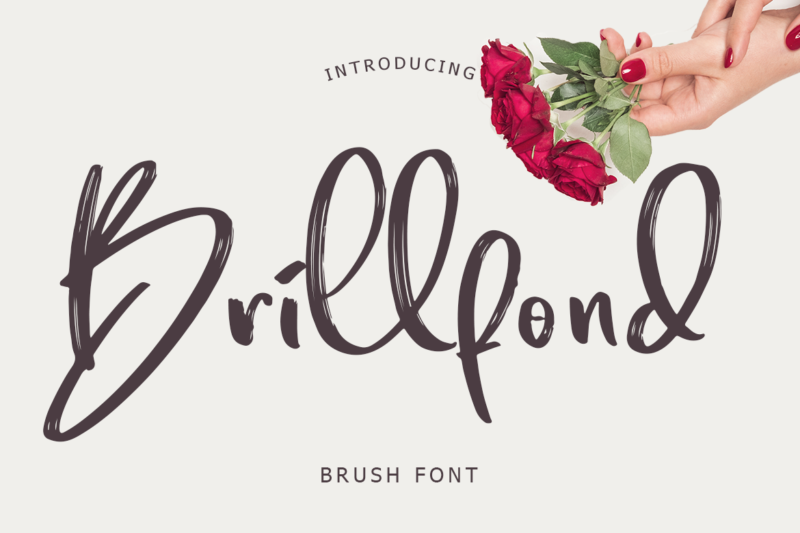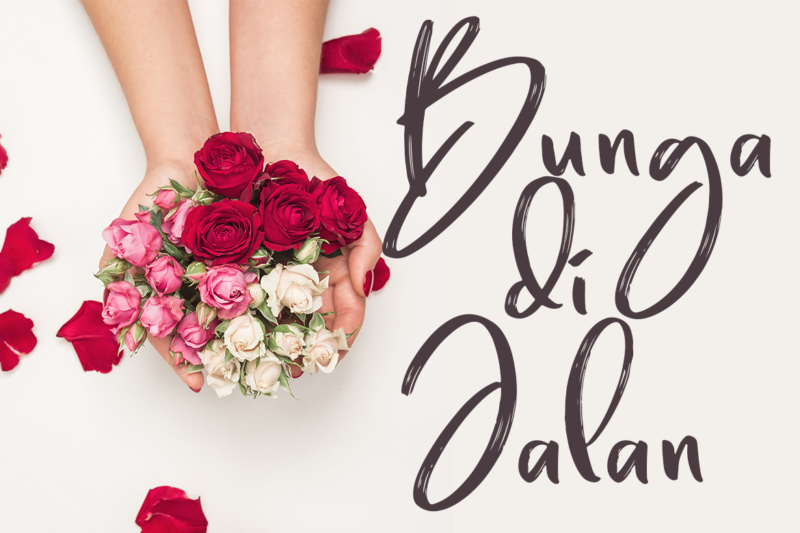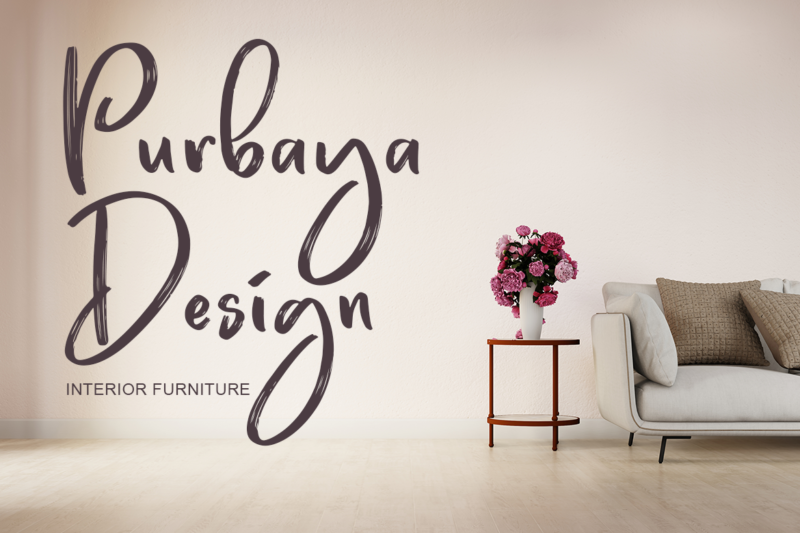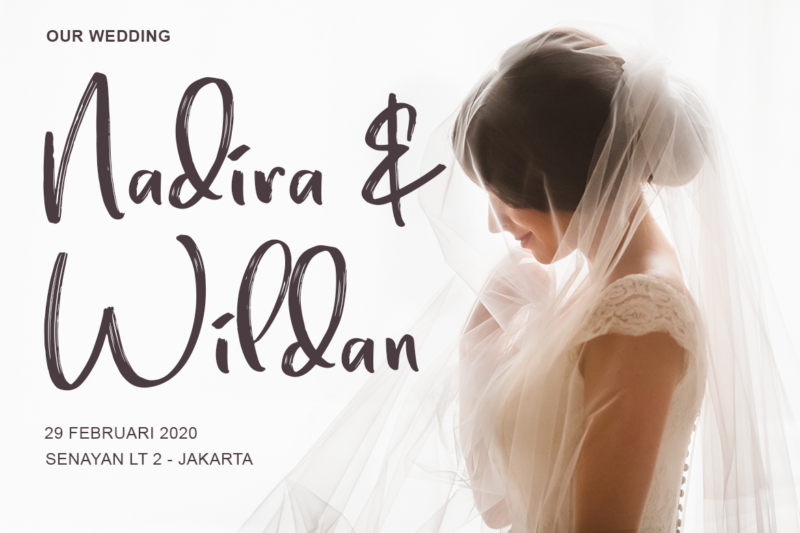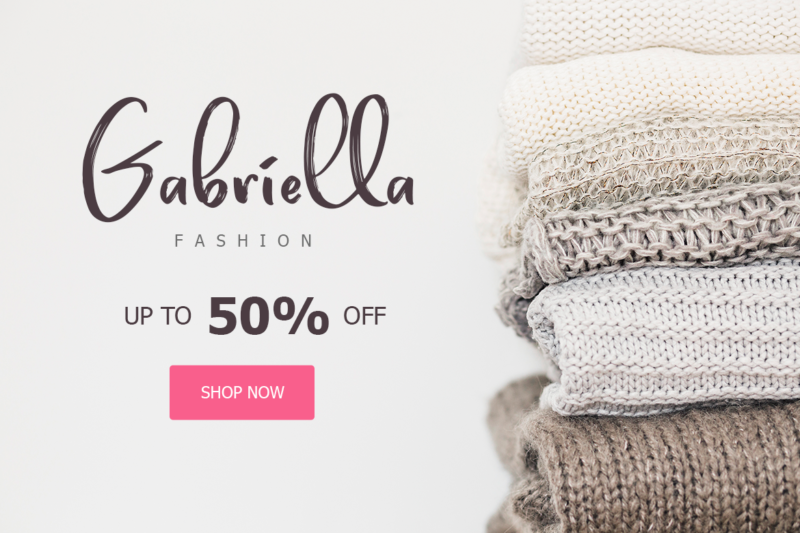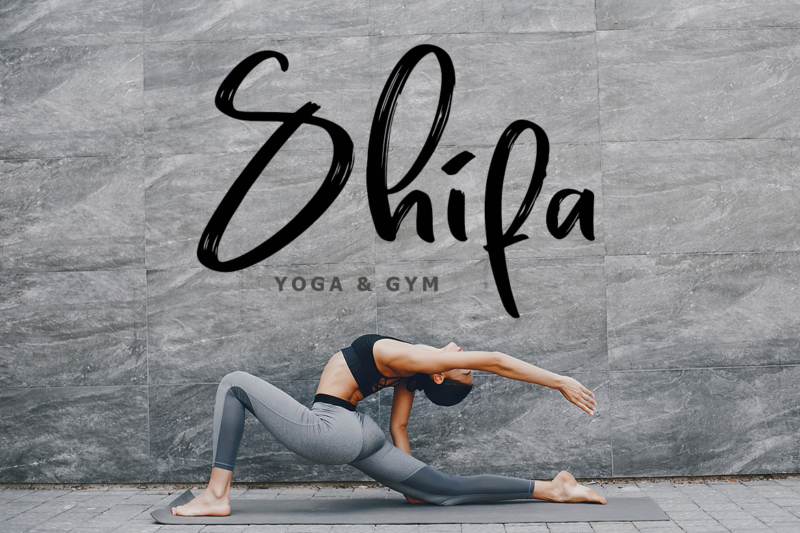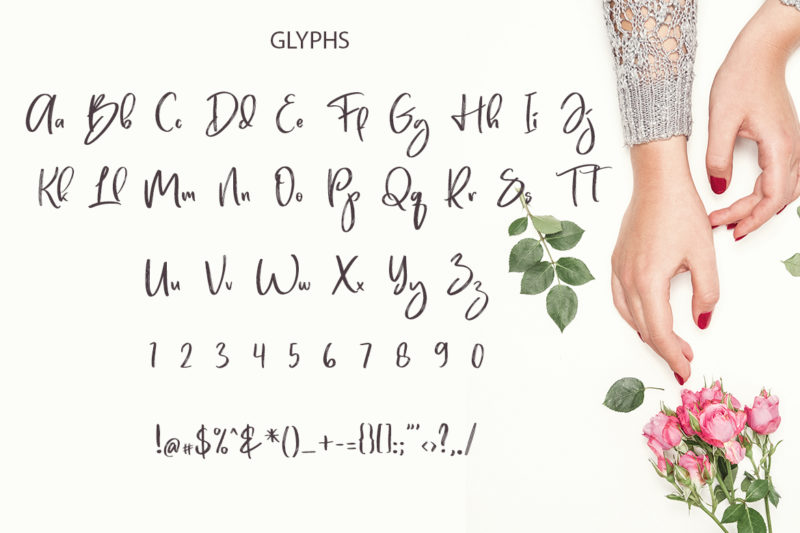
Brillfond Brush Typeface
Brillfond Brush Typeface is a Modern Script font can make your text appear elegant, luxurious, and modern!
Brillfond Brush Typeface is perfect for branding projects, logo, wedding designs, social media posts, advertisements, product packaging, tshirt design, product designs, label, photography, watermark, invitation, stationery and any projects.
- Tons of glyphs
- Ligature